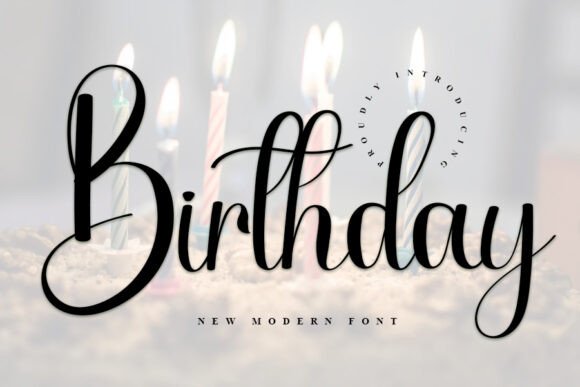
The Birth of a New Favorite: Exploring the ‘Birthday’ Font
Unveiling the ‘Birthday’ Font
‘Birthday’ font is a state-of-the-art design that embodies simplicity and sophistication. Its clean lines and curves make it an ideal choice for a wide range of projects, from YouTube banners and logo mockups to wedding invitations, ID cards, flyers, and craftworks.
- ✨ Elegant and modern design
- ✅ Highly versatile for various projects
- ⚡️ Easy to read and understand
- 🎨 Beautifully crafted curves and lines
The Designer Inspiration Behind ‘Birthday’ Font
According to its creators, ‘Birthday’ font was inspired by the simplicity and elegance of modern design. The goal was to craft a font that would bring a touch of freshness and beauty to various projects, making it a versatile choice for designers and crafters alike.